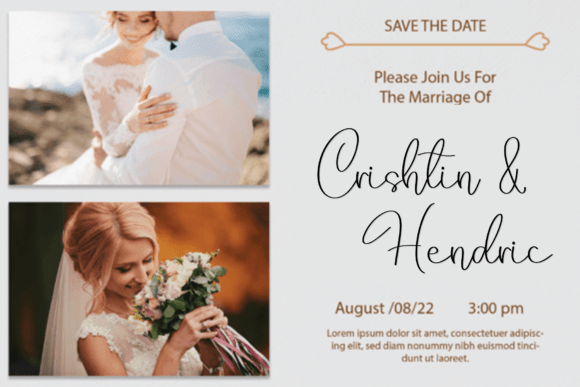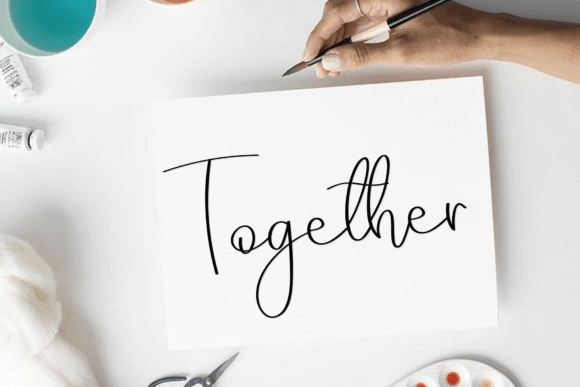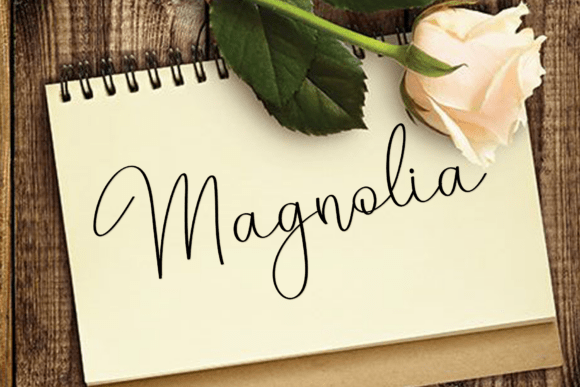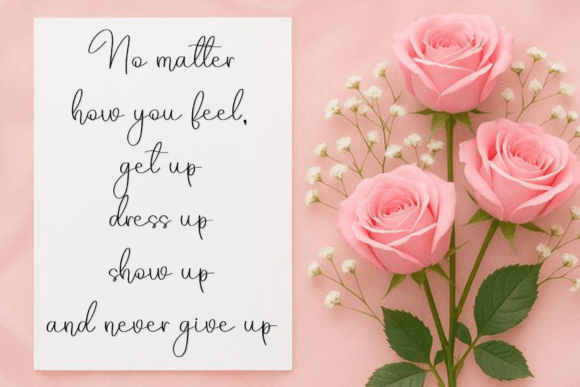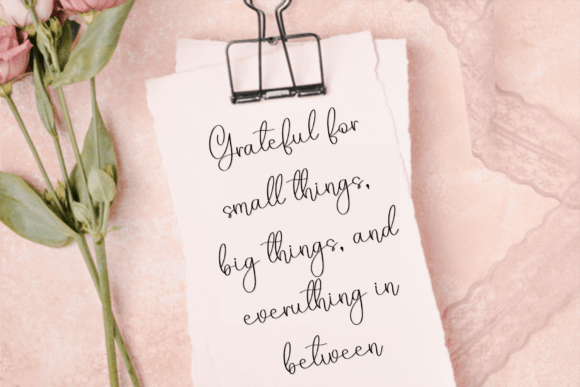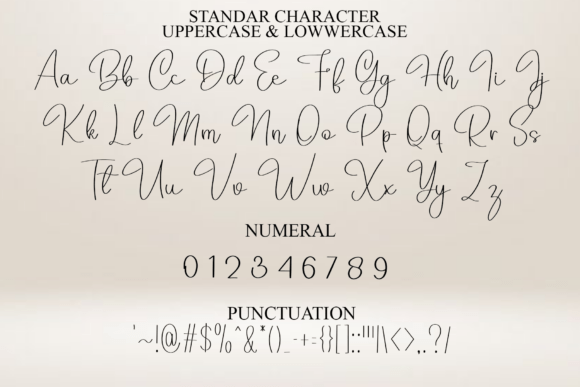
The Magic of High School Font: A Festive Holiday Typeface
It’s the most wonderful time of the year – and I’m not just talking about the holiday cookies (although, let’s be real, they’re a close second)! As designers, crafters, and creative hobbyists, we’re always on the lookout for that perfect font to capture the spirit of the season. I still remember the year I spent hours searching for the ideal typeface for a client’s holiday card project. The design brief was simple: create something festive, fun, and utterly enchanting. That’s when I stumbled upon the High School font – and it instantly became my new best friend! ✨
So, what makes High School font so special? Let’s dive into the good stuff:
• ✅ Festive and merry vibe: This font screams holiday cheer, making it perfect for greeting cards, gift tags, and all your holiday-themed projects.
• ✨ Decorative elements and whimsical flair: The High School font is bursting with personality, adding a touch of magic to your designs.
• ✅ PUA encoded for easy access: With PUA encoding, you can effortlessly access all the amazing glyphs and ligatures – no fuss, no muss!
Now, no font is perfect, and High School has a few minor quirks to keep in mind:
• ⚠️ May not be suitable for body text: Due to its decorative nature, High School font might not be the best choice for longer blocks of text. Stick to headlines, titles, and short phrases for maximum impact.
• 🤔 Limited use outside of holiday season: While the font is amazing for holiday projects, it might not be the best fit for other design applications. Consider saving it for special occasions or themed events.
The Story Behind High School Font: A Designer Inspiration
Legend has it that the creator of High School font was inspired by vintage holiday posters and the magic of childhood winters. They aimed to craft a typeface that would evoke the same sense of wonder and enchantment we feel during the holiday season. And, judging by the font’s popularity, I’d say they succeeded! 🎄